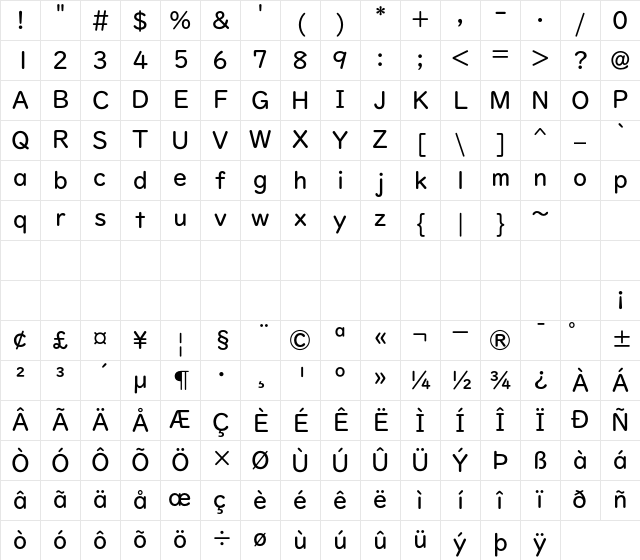
UDDigiKyokasho StdN M
Style: M
Designer: TypeBank Co., Ltd.
Design Context for UDDigiKyokasho StdN
UDDigiKyokasho StdN is a composed and adaptable typeface that performs quietly and consistently across a wide range of design contexts.